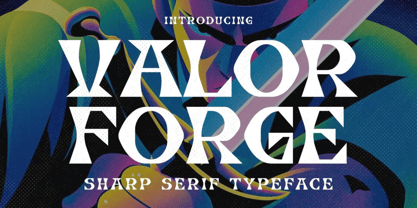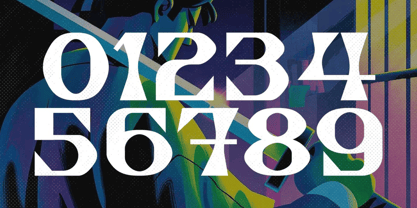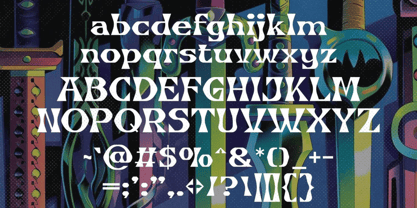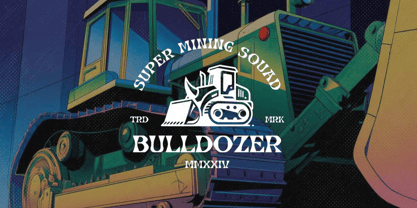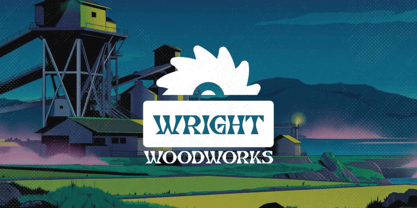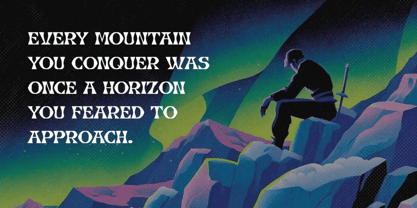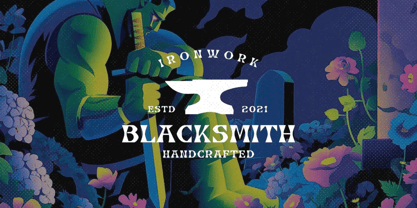
Vladual
by Hasnat Studio
The Vladual Font Family was designed by Hasnat Khan and published by Hasnat Studio. Vladual contains 1 styles. More about this family
Vladual is a bold, commanding typeface forged for strength, confidence, and visual dominance. With sharp angles, rigid lines, and a powerful forged-metal aesthetic, Vladual delivers unapologetic masculinity and heroic presence to every design. This font isn’t just built for style—it’s built to make a statement.
Every glyph in Vladual feels as if it were hammered out of raw steel, making it the perfect font for rugged branding, heavy-duty logos, and bold identity systems. Whether you're crafting visual assets for outdoor gear, sports teams, barbershops, or tactical equipment, Vladual hits hard and leaves a lasting impression.
Key Features:
• Strong, Angular Design: Built with bold lines and sharp cuts for a commanding, masculine look.
• Heavy Impact Aesthetic: Inspired by industrial strength and forged-metal textures.
• Standard Glyph Set: Includes a complete set of uppercase/lowercase characters, numbers & punctuation.
Perfect For:
• Rugged Logo Design: Forge bold, lasting identities for gear brands, sportswear, or barbershops.
• Outdoor & Tactical Branding: Built for survival gear, utility products, and adventure equipment.
• Apparel & Merchandise: Great for powerful slogans, t-shirts, and masculine branding visuals.
• Promotional Materials: Ideal for banners, signage, and attention-grabbing headlines.
• Gaming & Esports: Add intensity and presence to team logos or character branding.
Strike bold. Speak strong. Choose Vladual—a typeface that hits like a hammer and stands like a fortress.
Designers: Hasnat Khan
Foundry: Hasnat Studio